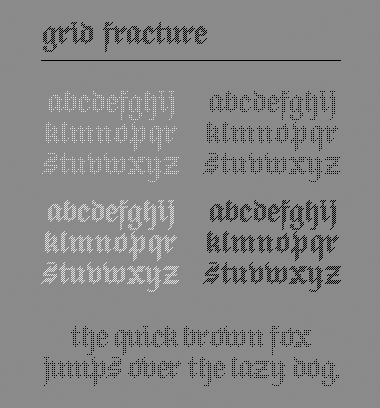
Grid Fracture
I tried to do some kind of a fraktur font with pixels. And this is the result. I hope you like it.
Very nice. Makes me want to play Commodore 64 games. :)
discussion and I love it.
examples for the grid fracture use.